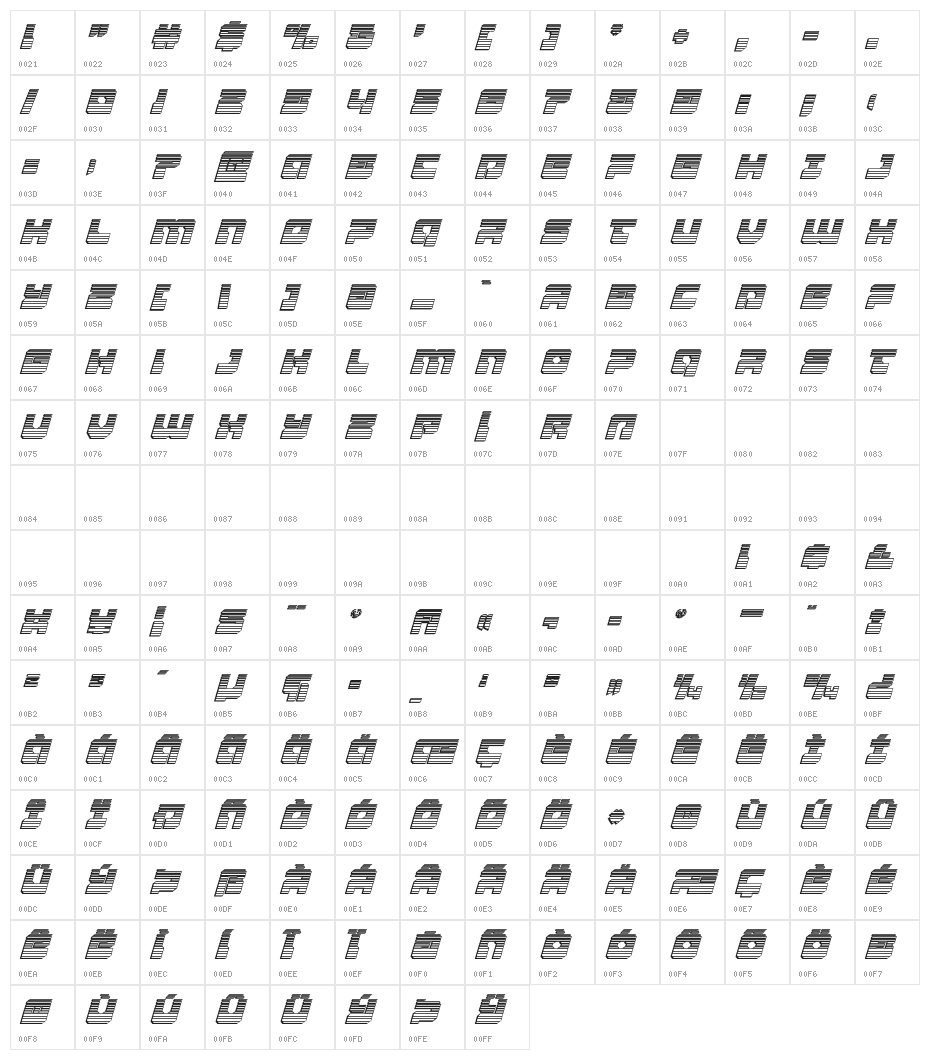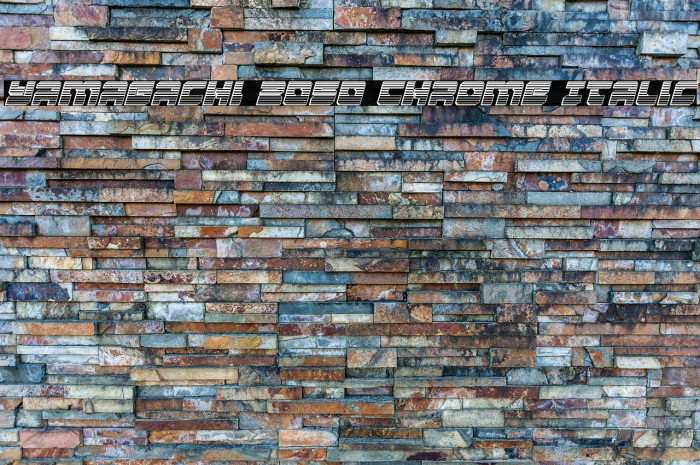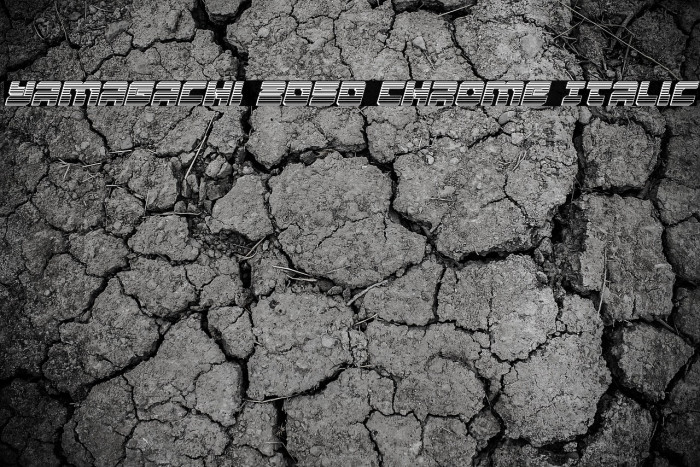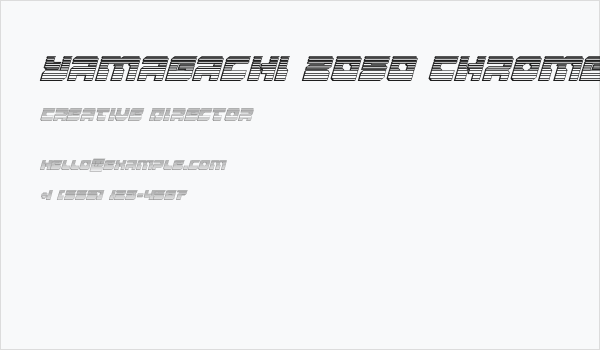
Yamagachi 2050 Chrome Italic Font
Yamagachi 2050 Chrome Italic Description
This font features a futuristic and dynamic design with a distinct chrome-like appearance. The characters are composed of multiple parallel lines that create a sense of movement and depth. The italic slant adds to its modern and sleek aesthetic, making it ideal for projects that require a cutting-edge look. Each letter and number is crafted with precision, maintaining consistency across the entire set. The special characters are also designed to match the overall style, ensuring a cohesive visual experience. This font is perfect for digital and tech-themed projects, offering a unique and eye-catching appeal.
| Proposed Projects | Ideal for tech branding, digital interfaces, futuristic posters, and video game titles. |